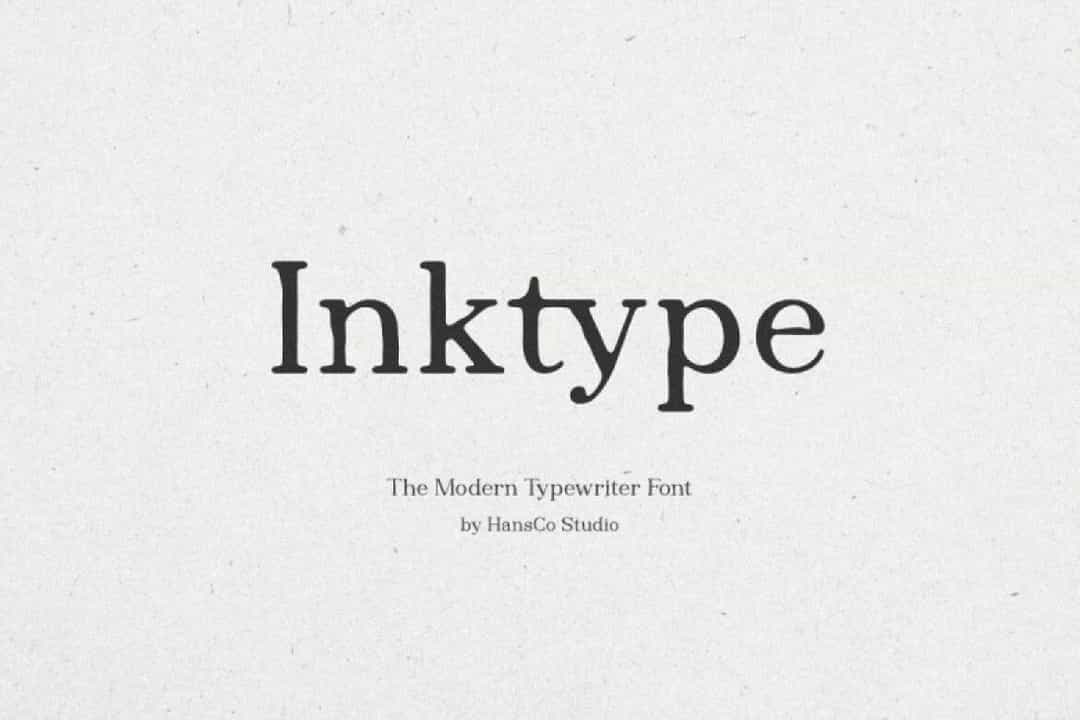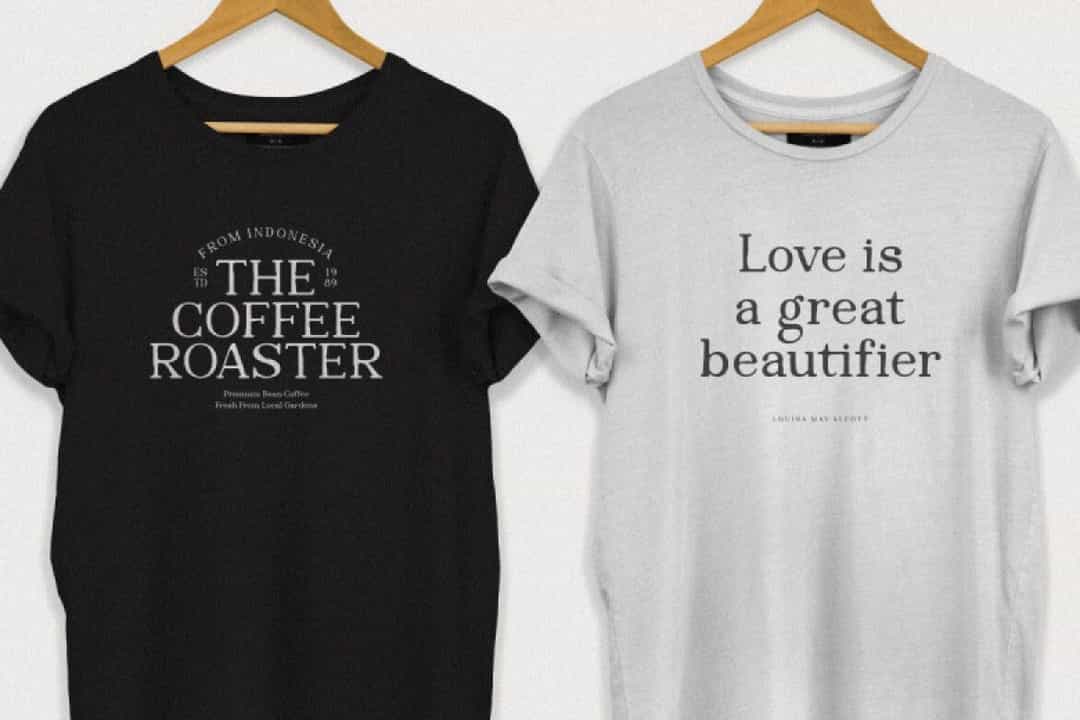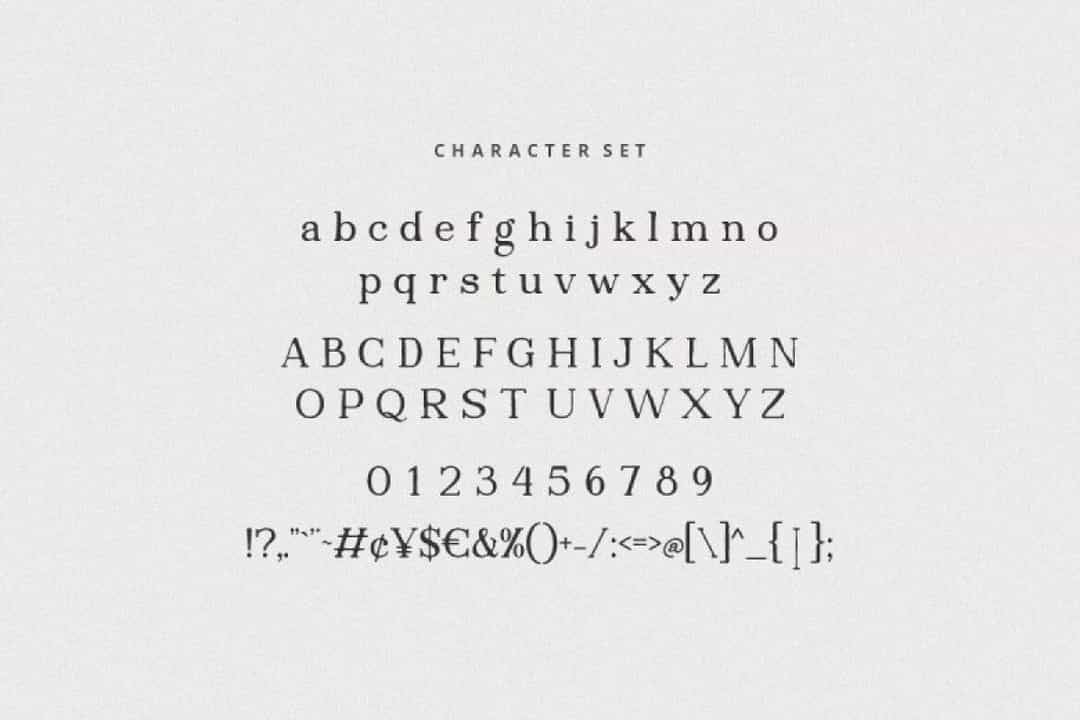
Inktype Font is a cute and modern hand drawn serif font designed with the touch of vintage style. Looking for fonts for Instagram or for any DIY project, this font will help to turn any creative idea into a masterpiece! This font can be used also for making print templates such as posters, branding, quotes, blog titles, fashion, invitations, greeting cards or business cards, clothing or stationery or anything else.